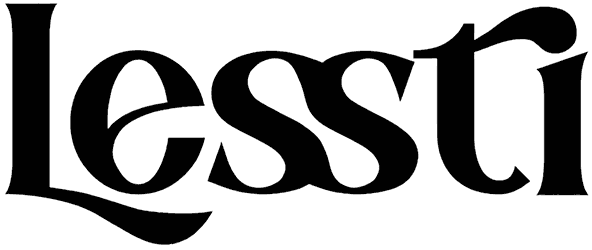
Lessti Font
If you’re looking for a serif font that will bring variety to your design by creating subtle twists, Lessti is your best suggestion.
This standard font, while maintaining the value of your content, prepares a beautiful dress for it that will create glory in the text. So if you want to create an official atmosphere on your posters, website, or book cover, try Lessti. The simplicity of this font will give you enough freedom to choose different elements in the design.